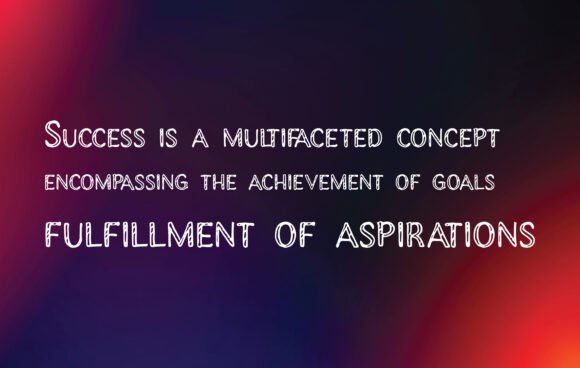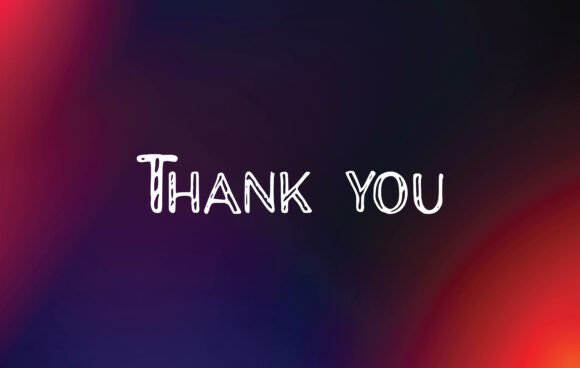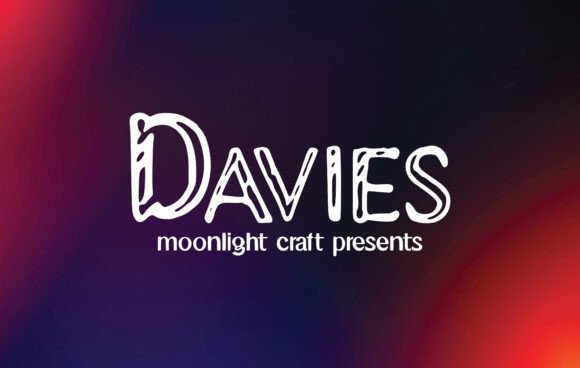
Introduction to Davies Font
Davies is a lovely and beautiful handwritten font.
Why Choose Davies Font?
Davies Font offers exceptional quality and versatility, making it a valuable addition to your design toolkit. Whether you’re creating for personal projects or commercial use, Davies Font delivers professional results.